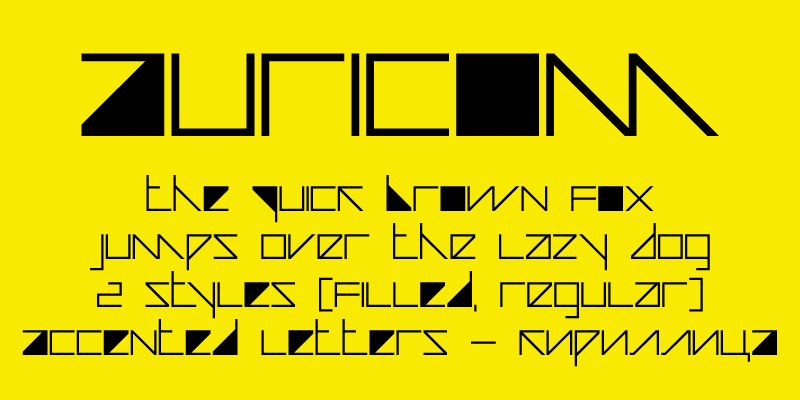
Auricom is inspired by the game Wip3out, released on the Playstation in 1999. This font is free for personal use. If you wish to use it for a commercial purpose, please contact me: contact [at] fthafm [dot] com Facebook: http://www.facebook.com/fthafm | Website: http://www.fthafm.com/ |